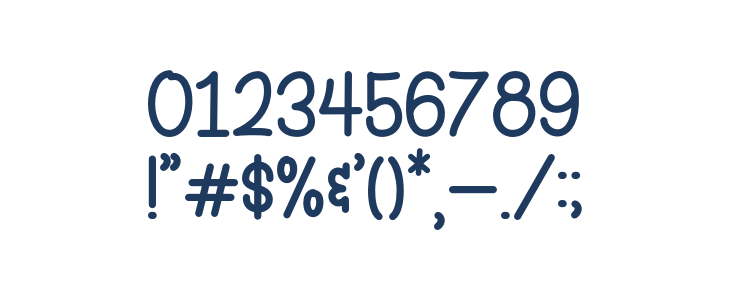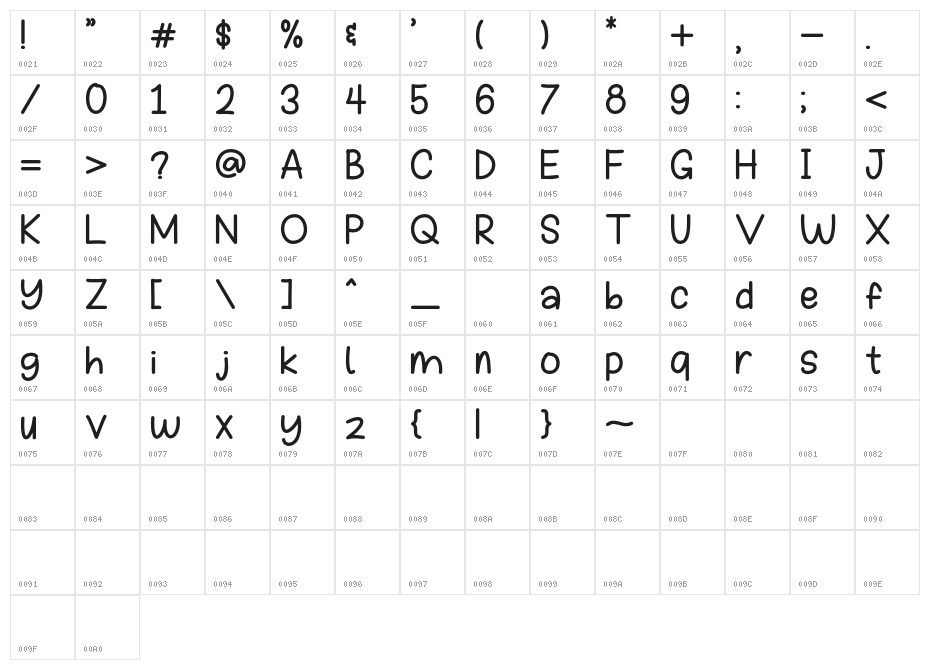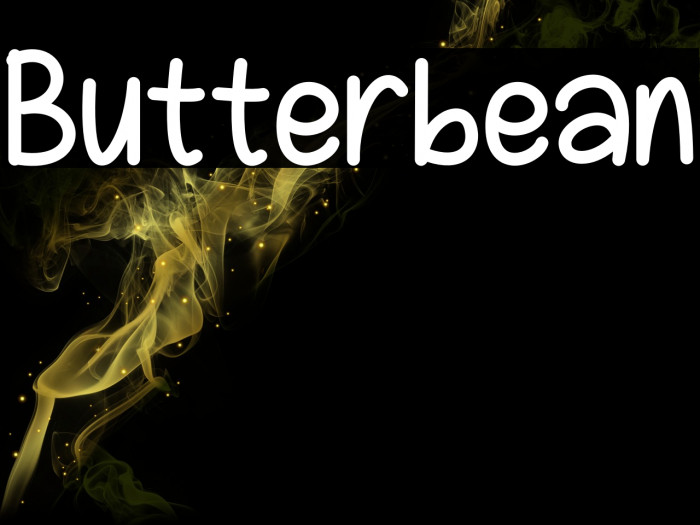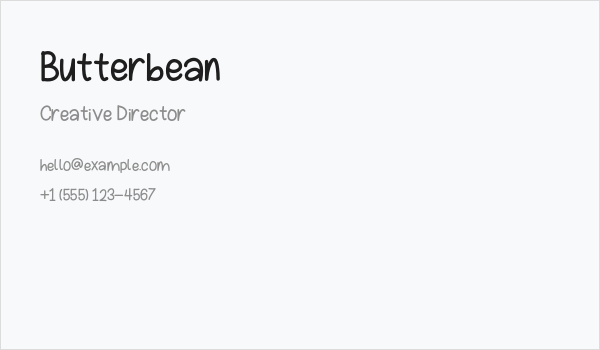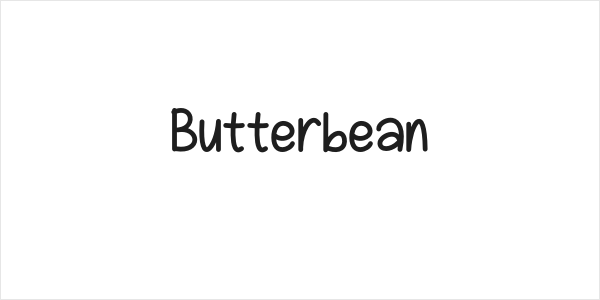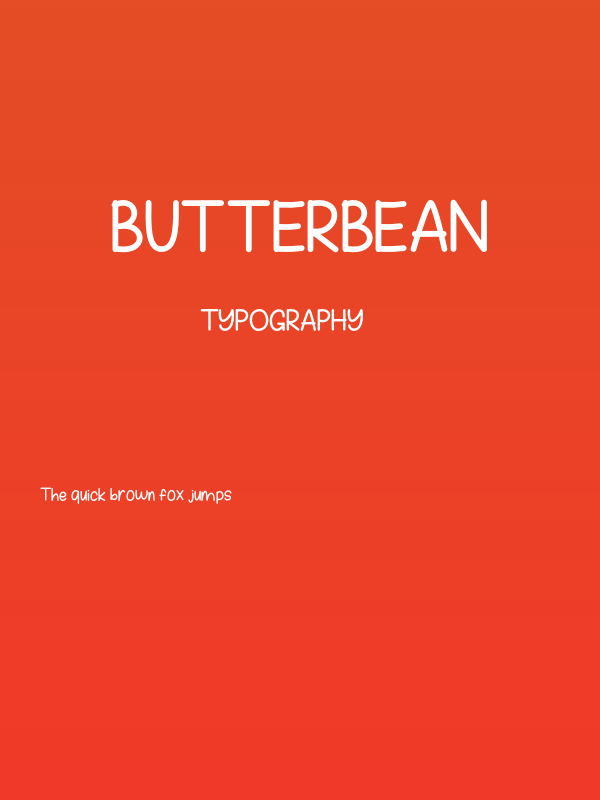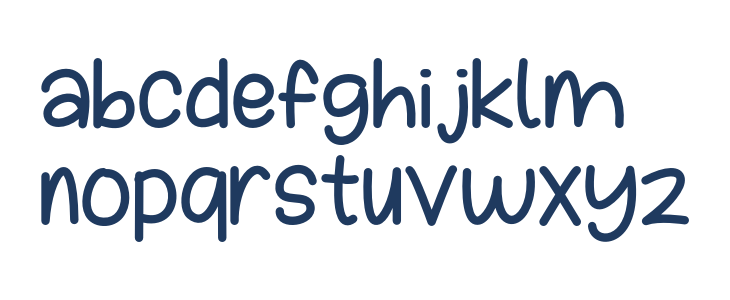
Butterbean Font
Butterbean Description
This playful and rounded font features a handwritten style with smooth curves and a friendly appearance. The characters are evenly spaced, providing a clean and approachable look. The uppercase letters maintain a consistent height, while the lowercase letters have a slightly whimsical touch, adding to the font's charm. The numerals are clear and easy to read, matching the overall aesthetic. Special characters are well-integrated, maintaining the font's cohesive style. This font is ideal for projects that require a personal and inviting feel.
| Proposed Projects | Ideal for children's books, greeting cards, playful branding, and casual invitations. |